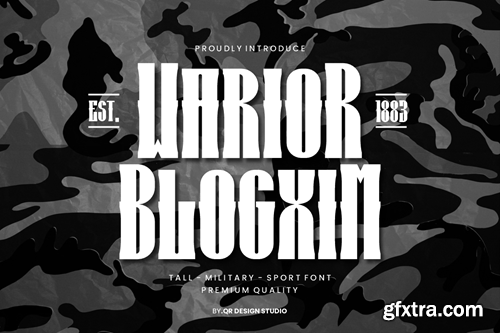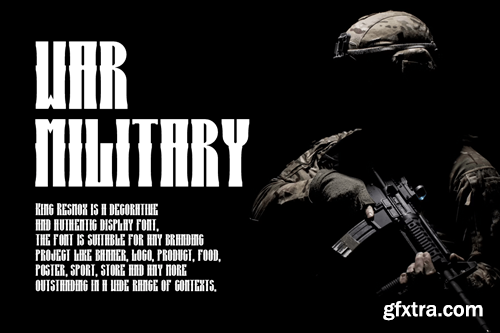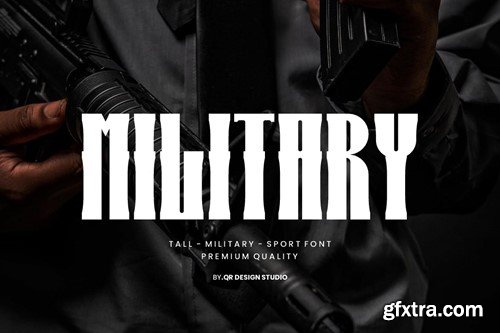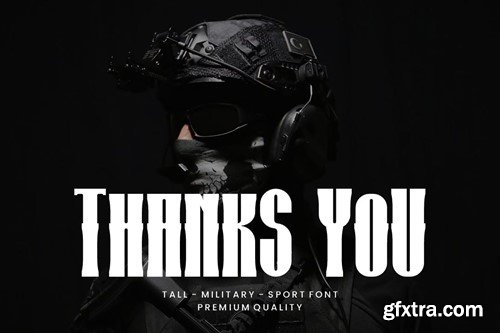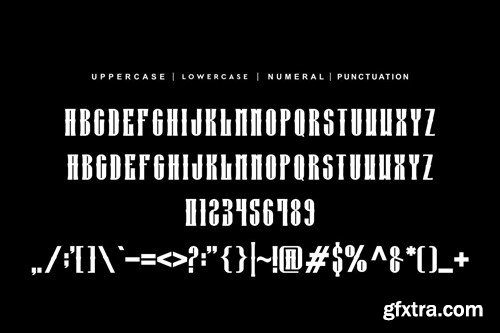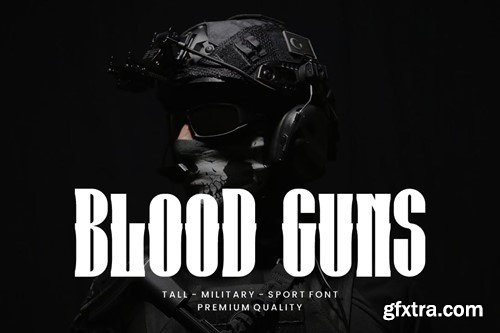
战士博客xim - 拔高 & 军事字体 EW4VJLP
Warior Blogxim - Tall & Military Font EW4VJLP
Warior Blogxim - Tall & Military Font
Warior Blogxim Font is a bold and authentic display font. The font is suitable for any branding project like poster, logo, sport, and many more. Outstanding in a wide range of contexts.